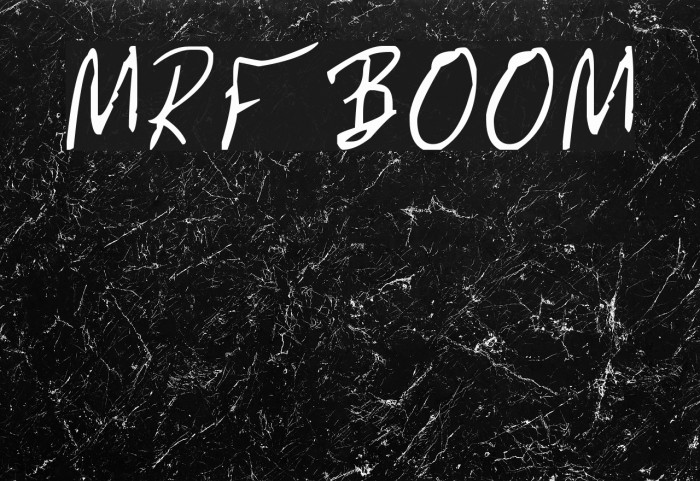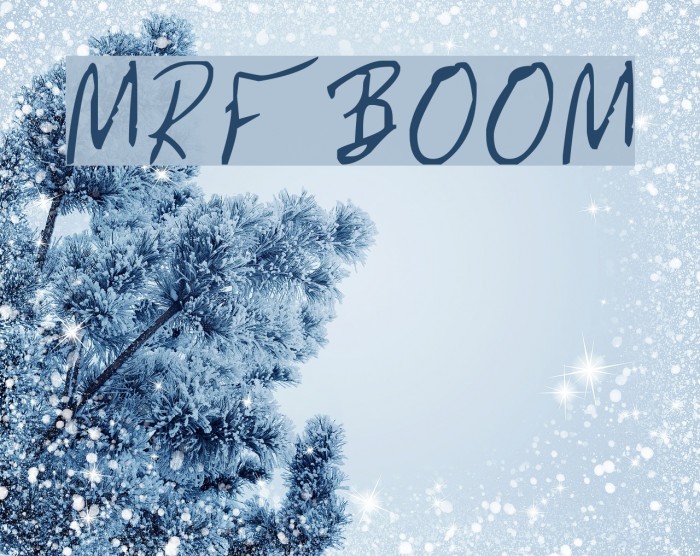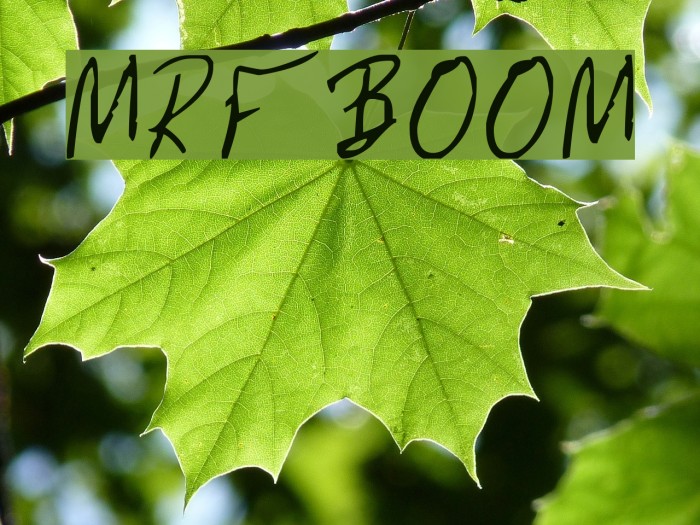
MRFBOOM Font
This font exhibits a dynamic and energetic handwritten style, characterized by its irregular and playful strokes. The uppercase letters are bold and slightly slanted, giving a sense of movement and spontaneity. The lowercase letters maintain a consistent flow with a casual, informal appearance. Numbers are clear and legible, with a slight tilt that complements the overall style. Special characters are creatively integrated, maintaining the font's lively and expressive nature. This font's unique personality makes it stand out, perfect for projects that require a touch of creativity and individuality.
A dynamic, handwritten font with playful and energetic strokes.
- Proposed Projects: Ideal for creative projects such as greeting cards, invitations, posters, and branding materials that require a personal touch.
- Use Case: Logos, Headlines, Creative projects